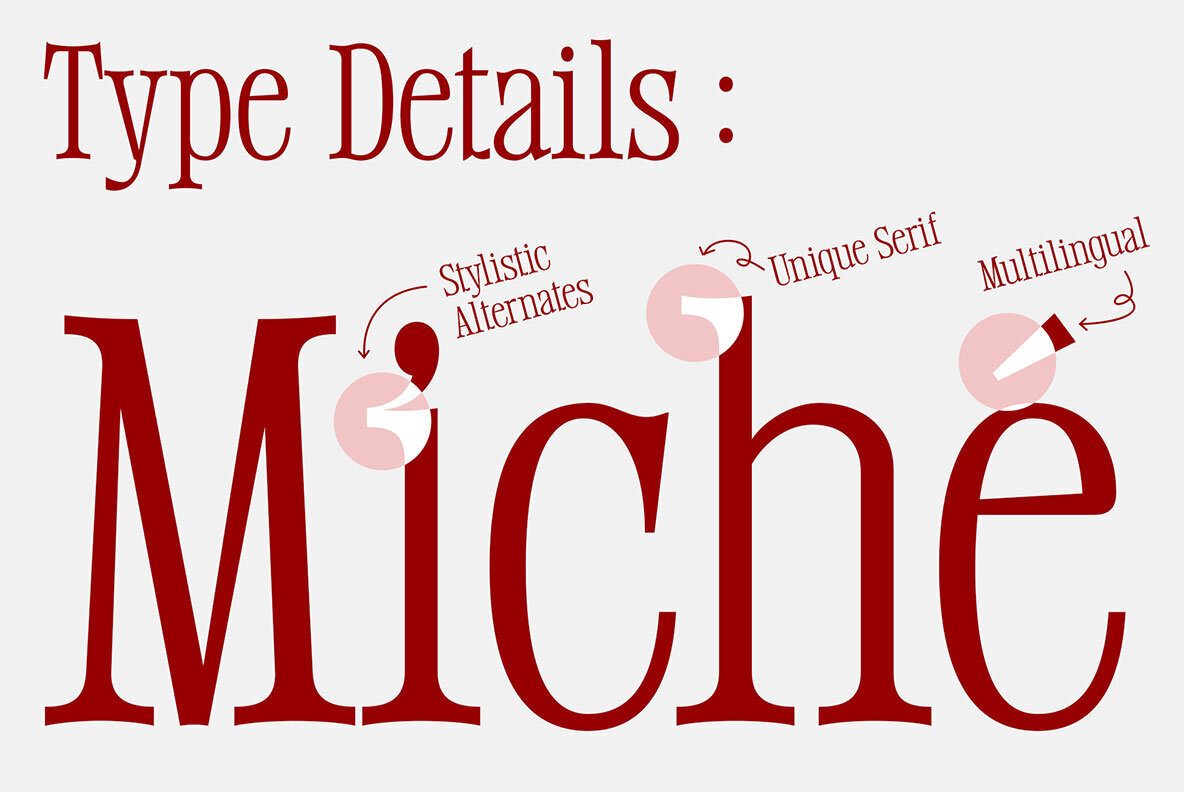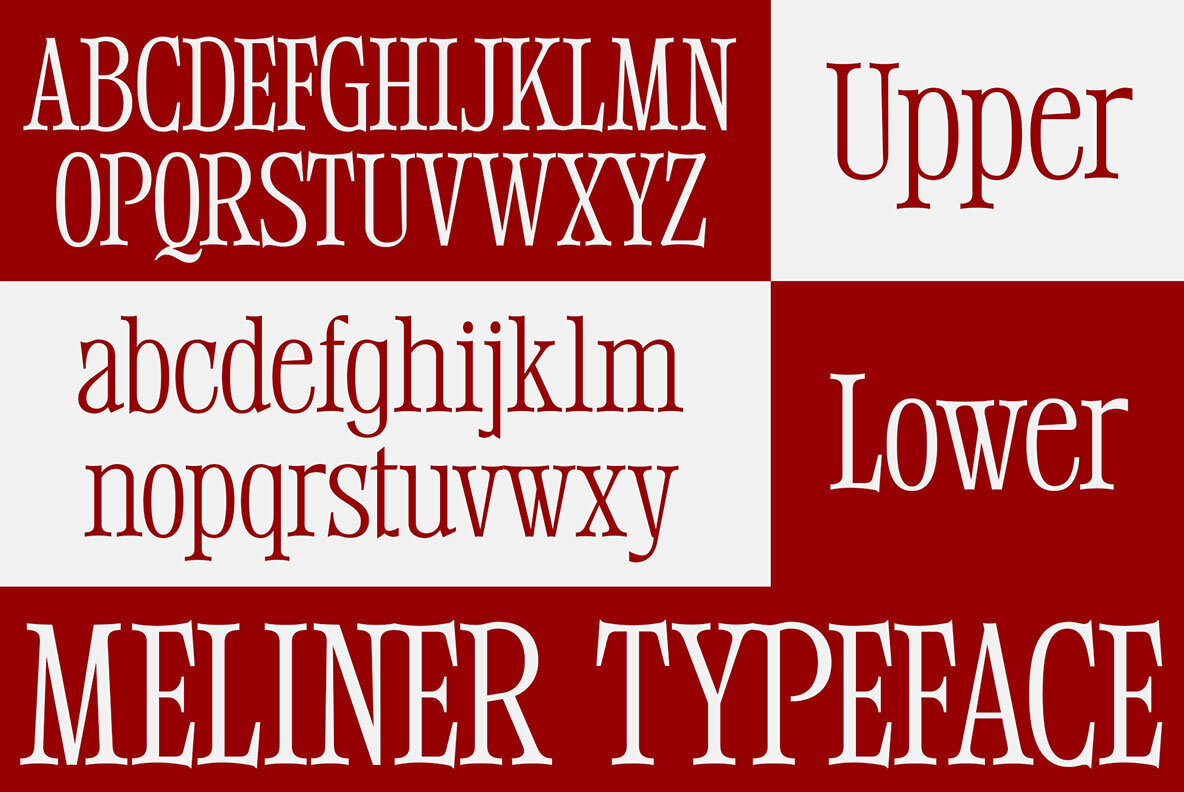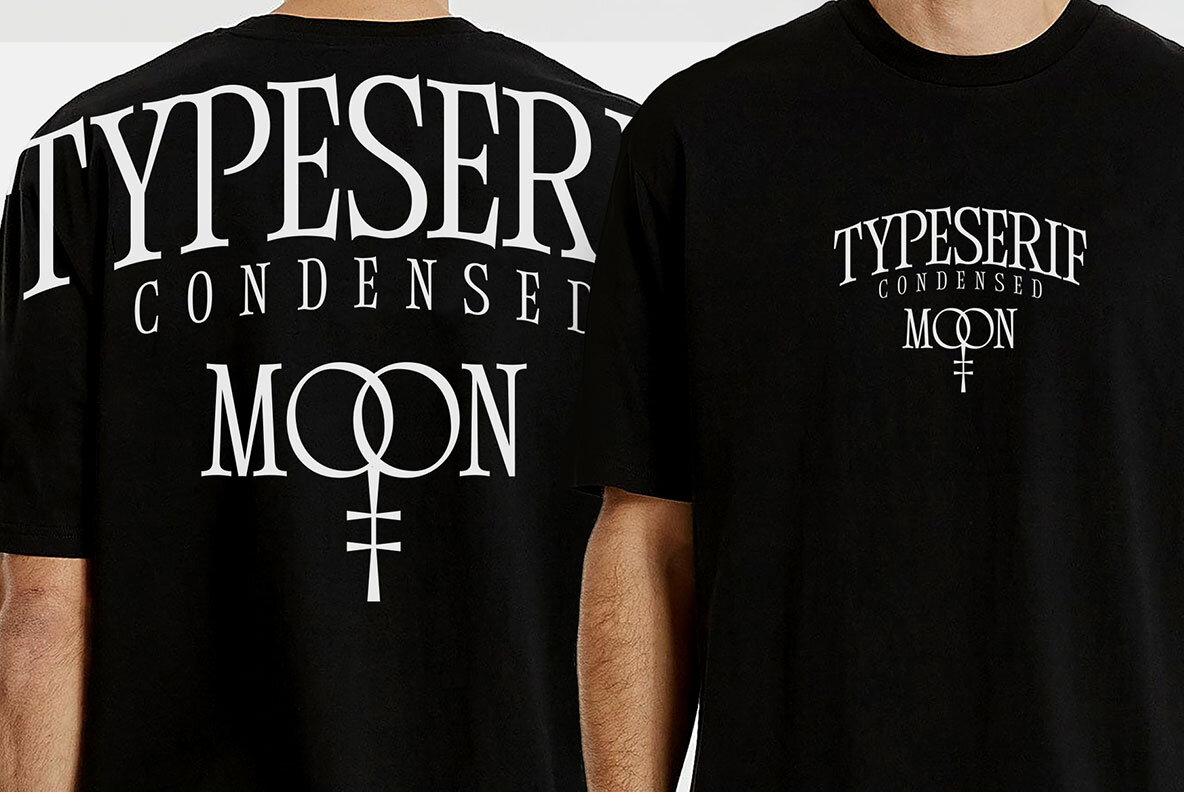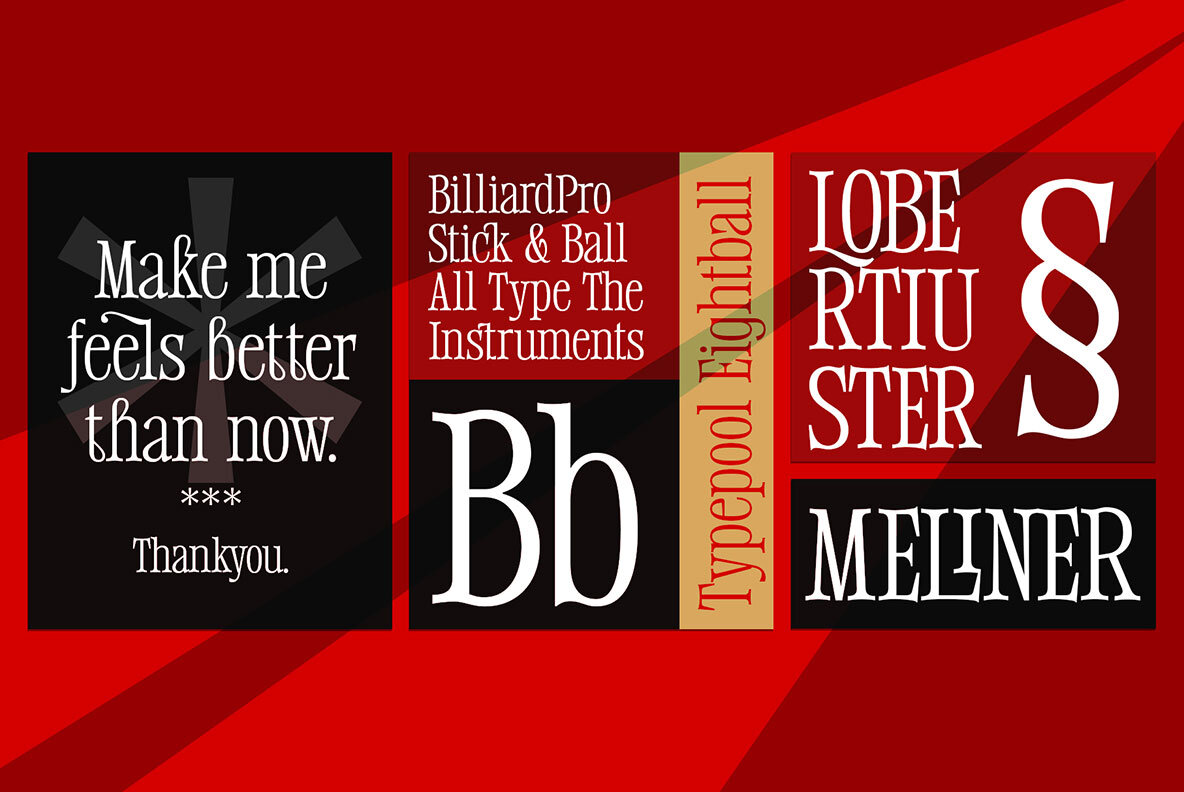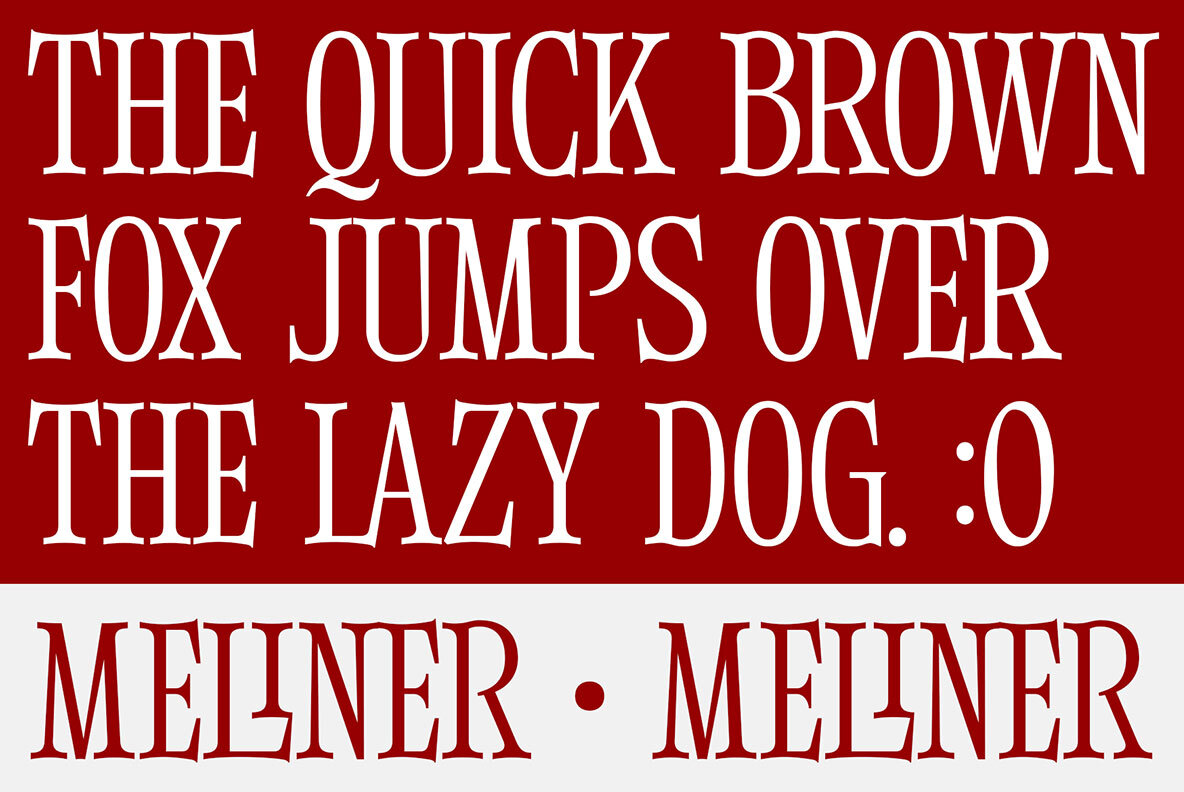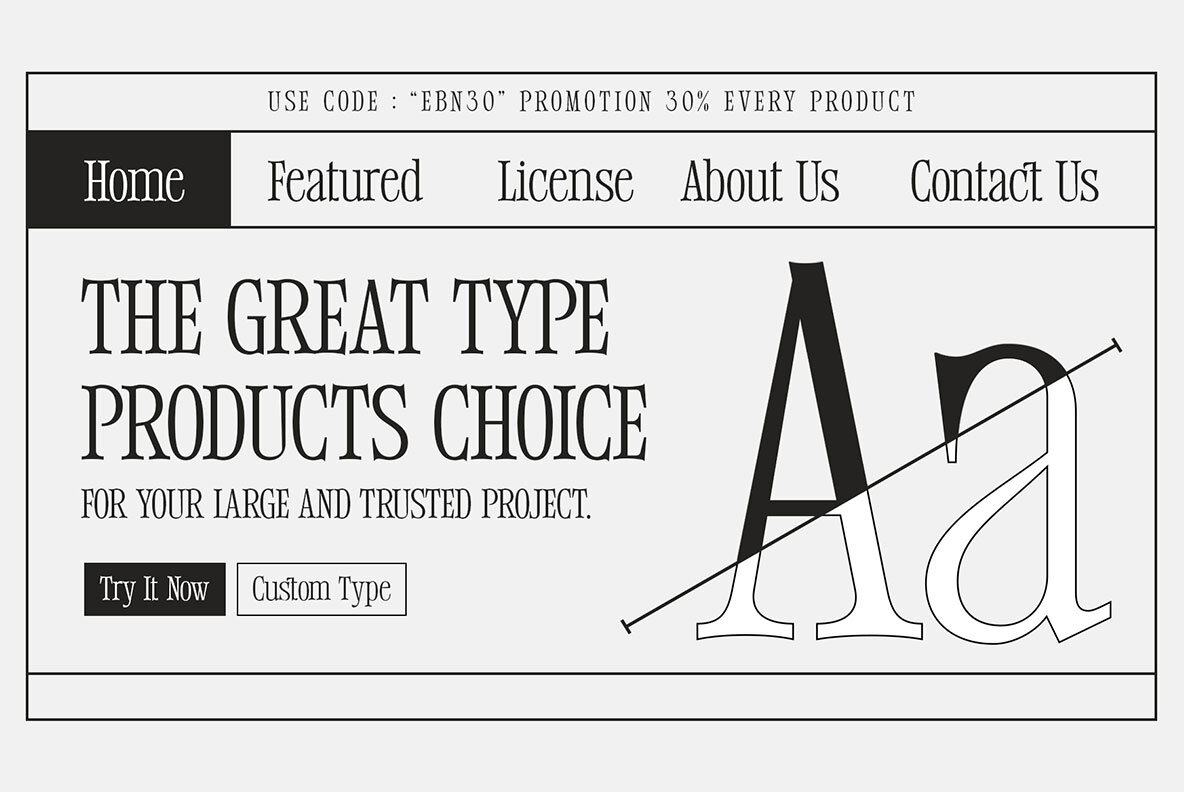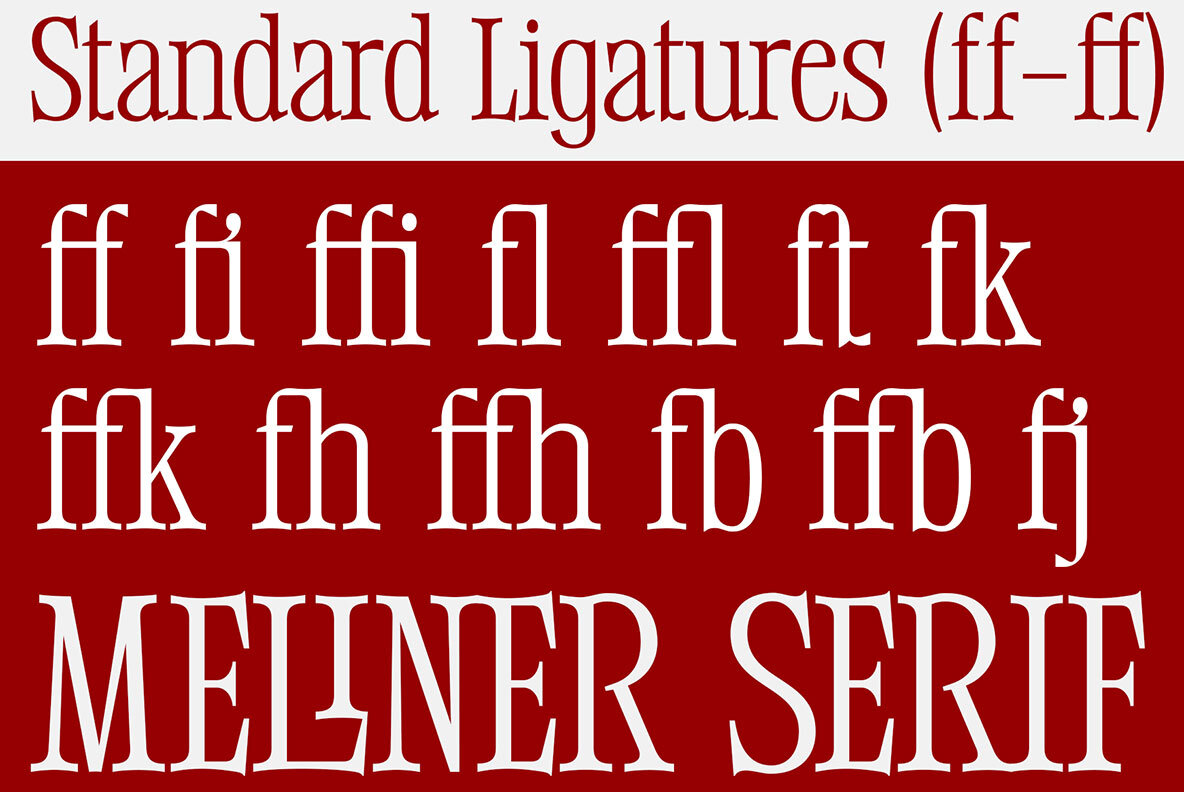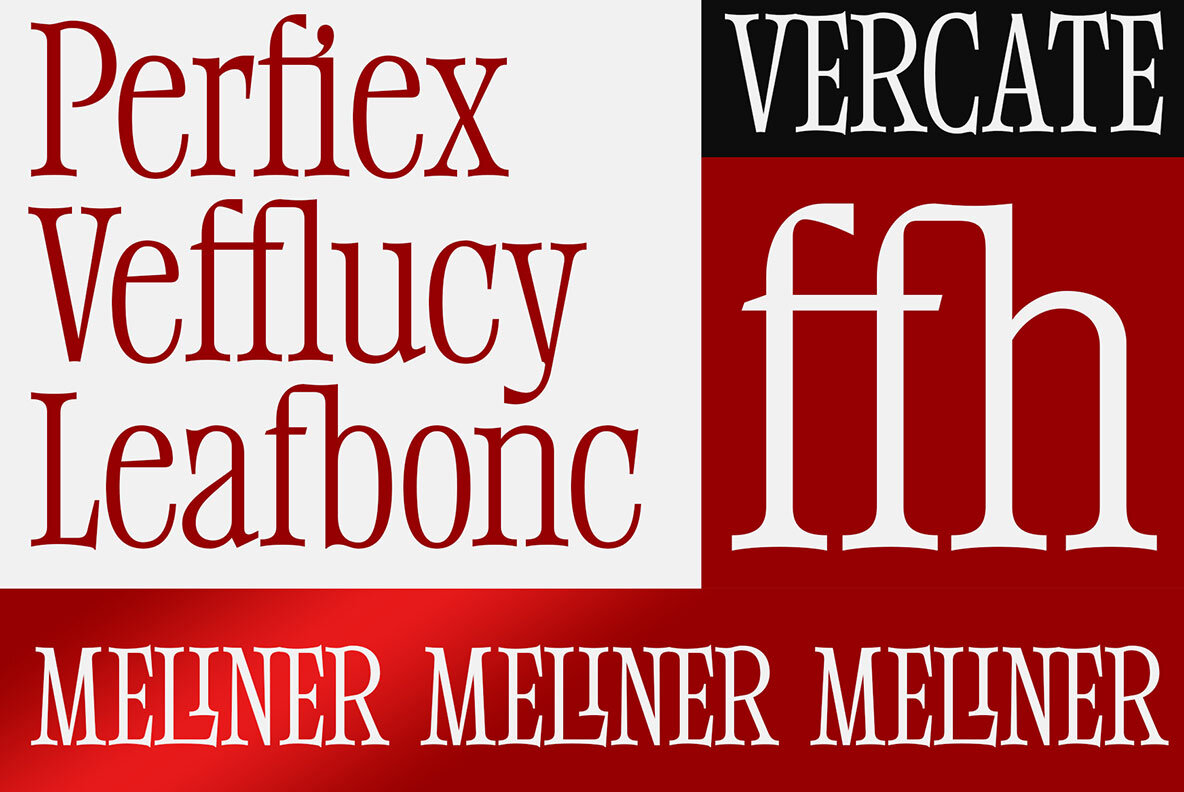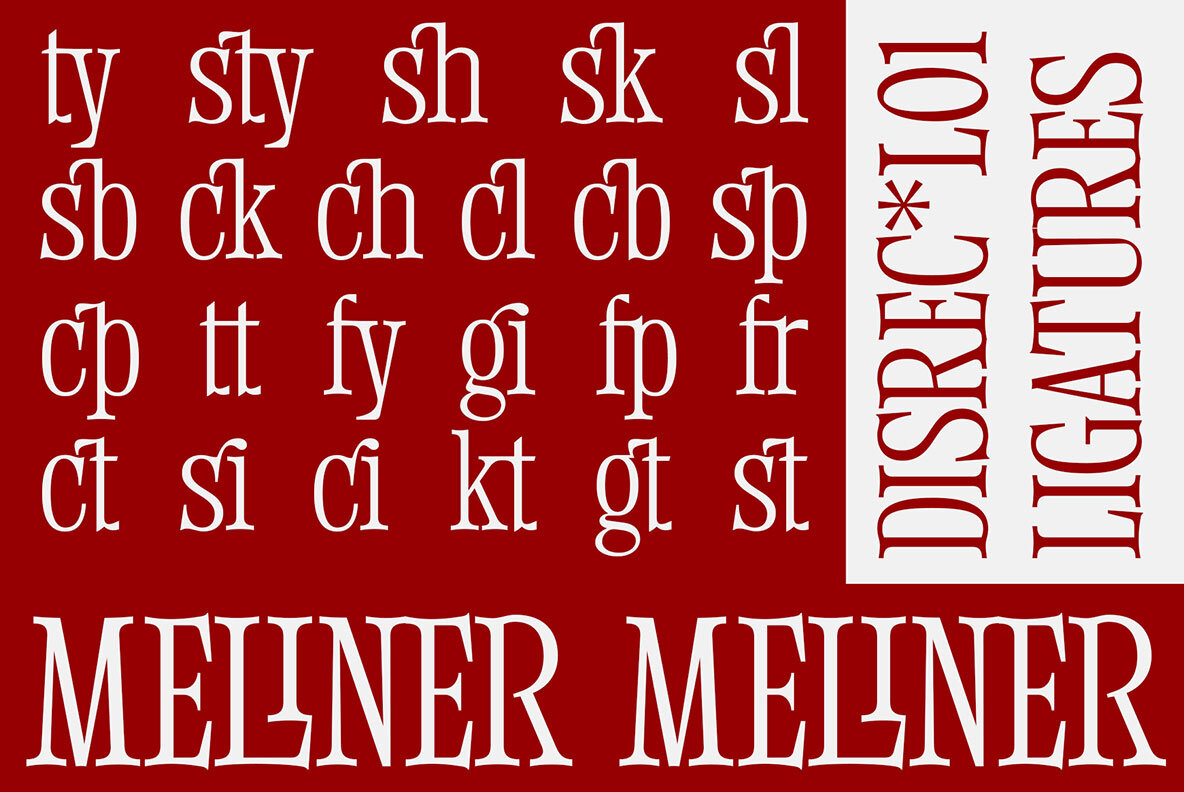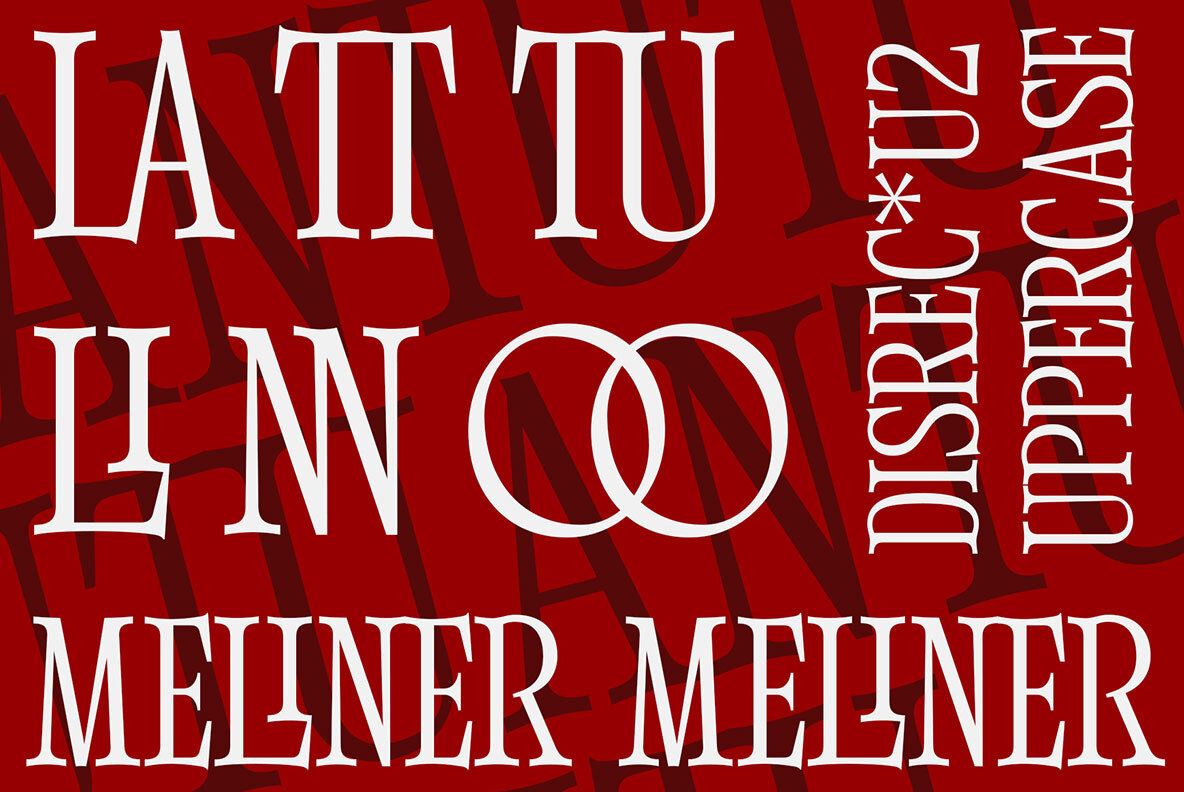
Meliner Font
Meliner Regular
Meliner is a compact display serif font known for its distinctive and elegant serif shape. It's perfect for creating sleek, impressive designs with a modern, stylish personality. This font features 40 ligatures and 46 alternative glyphs. For optimal use, we recommend software that supports OpenType features and Glyphs panels such as Adobe applications and Corel Draw to access the full range of glyph variations. Meliner is the result of dedication and creativity, designed to be both easy and fun to use.Meliner: Elegant Display Serif for Modern Designs